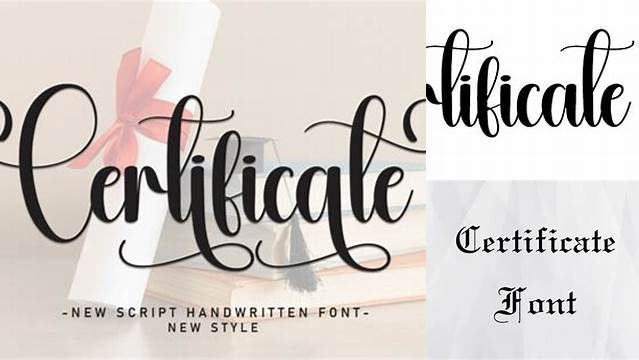
Hey guys! Looking to add a touch of elegance and sophistication to your certificates? Well, you've come to the right place! We're diving deep into the world of certificate script fonts, and the best part? You can download them for free! So, let's get started and find the perfect font to make your certificates shine.
What are Certificate Script Fonts?
Certificate script fonts, as the name suggests, are typefaces that mimic the flowing, handwritten style often seen on formal documents like certificates, diplomas, and awards. These fonts evoke a sense of tradition, authenticity, and prestige. They typically feature elegant curves, flourishes, and varying stroke thicknesses, lending a touch of artistry to any text. The key to a great certificate is often the font, and that's where certificate script fonts come in. They are designed to be both legible and beautiful, making the document feel official and special. Using the right script font can instantly elevate the look of your certificates, making them feel more professional and valuable. But, how do you choose the right one? Keep reading, and we'll explore the different styles, characteristics, and where to find the best free downloads.
Why Use Script Fonts for Certificates?
The use of script fonts for certificates isn't just about aesthetics; it's rooted in historical tradition and psychological impact. Think about it – the flowing lines and elegant curves convey a sense of formality and respect, making the recipient feel truly valued. The certificate script fonts tell a story of accomplishment and recognition. When you see a certificate with a beautifully crafted script font, you immediately understand the importance of the document. It communicates that the achievement is significant and worthy of celebration. The elegance of the font can also add a touch of sophistication that other font styles simply can't match. This is especially important for certificates that are meant to be displayed and admired. Beyond aesthetics, script fonts offer a personalized touch that can't be replicated by more generic typefaces. The handwritten quality of these fonts suggests a level of care and attention to detail, making the certificate feel more unique and special. So, if you want to create certificates that truly stand out, choosing the right certificate script font is crucial.
Where to Find Free Certificate Script Fonts
Different Styles of Script Fonts for Certificates
When it comes to certificate script fonts, variety is the spice of life! There’s a whole spectrum of styles to choose from, each with its unique personality and impact. Understanding these styles can help you pick the perfect font that matches the tone and purpose of your certificate. Let's dive into some popular categories. First up, we have the classic calligraphic scripts. These fonts are inspired by traditional penmanship, featuring elegant strokes and elaborate flourishes. They're perfect for formal certificates that require a touch of old-world charm. Then, there are the modern script fonts, which offer a contemporary twist on the classic style. These fonts often have cleaner lines and a more streamlined appearance, making them suitable for modern certificate designs. Next, we have the brush script fonts, which mimic the look of hand-painted lettering. They're bold, expressive, and perfect for certificates that need a more artistic and informal feel. Finally, there are the connecting scripts, where the letters flow seamlessly into one another, creating a cohesive and elegant look. No matter which style you choose, remember that the key is to select a certificate script font that is both beautiful and legible, ensuring your message is clear and impactful.
Key Characteristics of a Good Certificate Script Font
Not all certificate script fonts are created equal. To ensure your certificates look their best, you need to choose a font with certain key characteristics. Legibility is paramount. No matter how beautiful a font is, if it's difficult to read, it's not a good choice for a certificate. Look for fonts with clear letterforms and ample spacing. The font should also be scalable. This means it should look good at both large and small sizes. You might need to use the font for the main heading and smaller details on the certificate, so versatility is key. Another important characteristic is consistency. A good certificate script font will have consistent stroke thicknesses and letter heights, creating a harmonious and balanced appearance. The font should also complement the overall design of your certificate. Consider the paper stock, colors, and other design elements when choosing a font. Finally, ensure the font has a comprehensive character set. This means it should include all the letters, numbers, and symbols you need, as well as any accented characters if you're working with multiple languages. By considering these key characteristics, you can choose a certificate script font that elevates your design and makes your certificates truly special.
How to Choose the Right Script Font for Your Certificate
Choosing the right certificate script font can feel overwhelming, especially with so many amazing options out there! But don't worry, guys, we've got you covered. Let's break down the process into simple steps. First, consider the tone and purpose of your certificate. Is it for a formal academic achievement, a fun employee recognition, or something else entirely? The font you choose should reflect the occasion. For formal certificates, opt for classic calligraphic scripts or elegant connecting scripts. For more informal settings, brush scripts or modern script fonts might be a better fit. Next, think about your audience. Who will be receiving this certificate? What kind of impression do you want to make? A font that feels too casual might not be appropriate for a prestigious award, while a font that's too formal might feel stuffy for a fun event. Legibility is crucial. Make sure the font is easy to read at various sizes. Print out a sample and see how it looks in real life. Consider the overall design of your certificate. The font should complement the other design elements, such as colors, borders, and images. Don't be afraid to experiment with different fonts. Try out a few options and see which one looks best. Remember, the perfect certificate script font is out there – you just need to find it!
Free vs. Premium Script Fonts: What's the Difference?
When searching for certificate script fonts, you'll quickly notice there are both free and premium options available. So, what's the difference, and which one should you choose? Let's break it down. Free fonts are, of course, the most budget-friendly option. They're a great choice if you're just starting out or have limited resources. However, free fonts often come with limitations. They might have a smaller character set, meaning they don't include all the letters, numbers, and symbols you need. They might also have lower design quality, with inconsistencies in stroke thickness or spacing. Premium fonts, on the other hand, typically offer a higher level of quality and features. They usually have a larger character set, including accented characters and special symbols. They're often designed by professional typographers and have a polished, refined look. Premium fonts also come with more comprehensive licensing terms, allowing you to use them for commercial projects without worry. The biggest difference often lies in the level of refinement and detail. Premium fonts tend to have more attention paid to the nuances of letterforms, kerning, and overall aesthetic appeal. Ultimately, the choice between free and premium certificate script fonts depends on your budget and specific needs. If you're looking for the highest quality and versatility, a premium font might be worth the investment. But if you're just starting out, there are plenty of fantastic free options to explore.